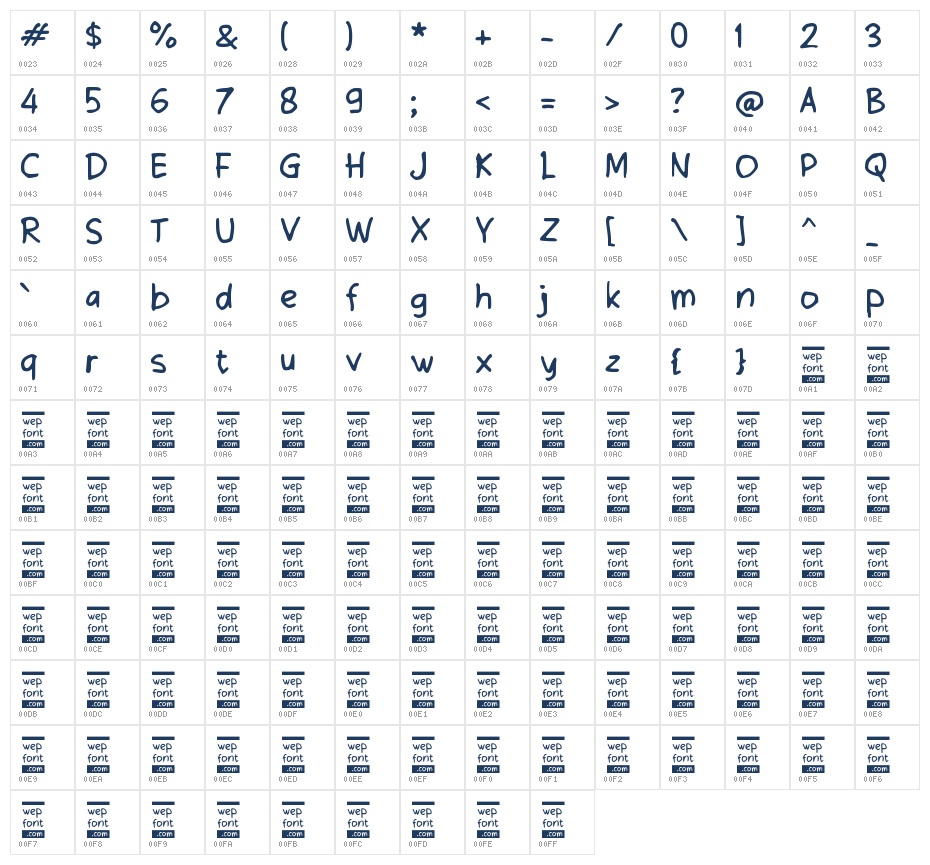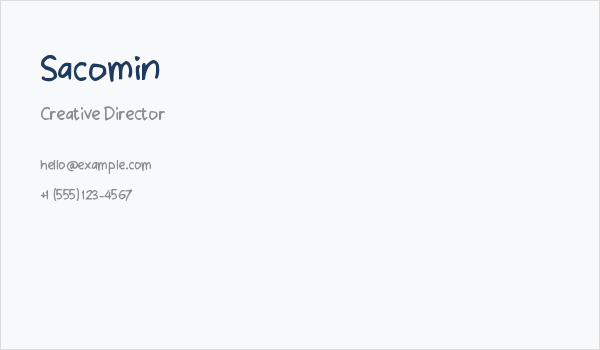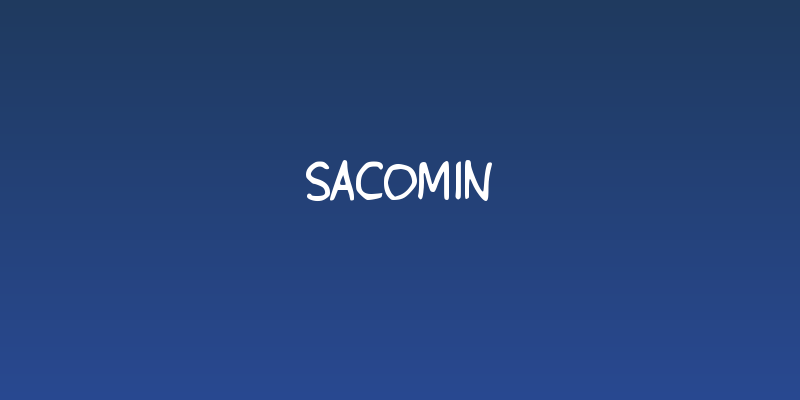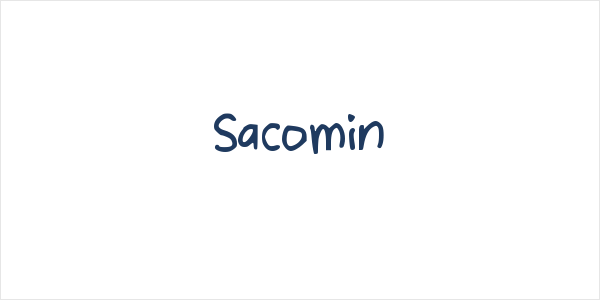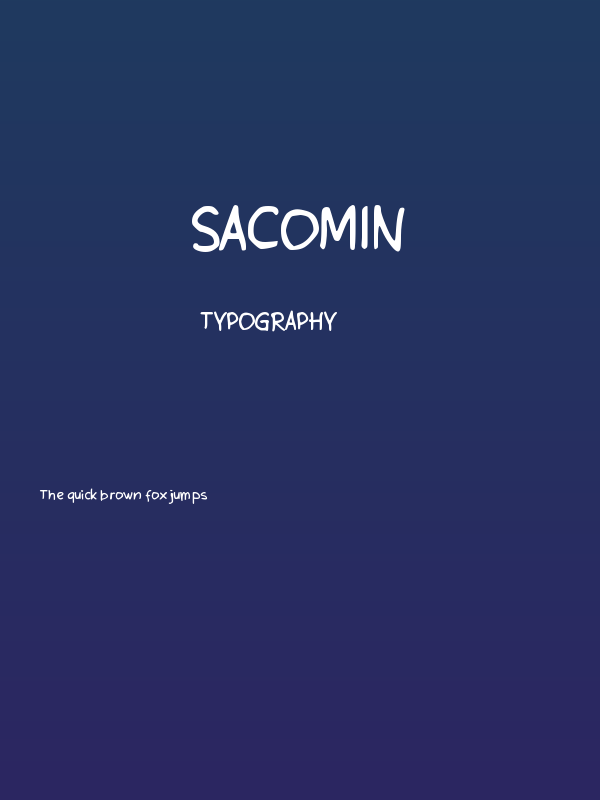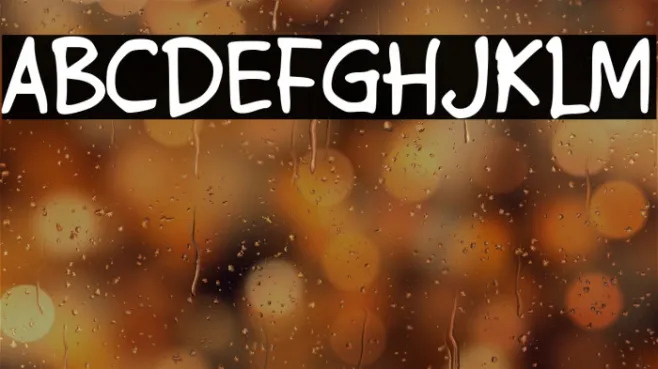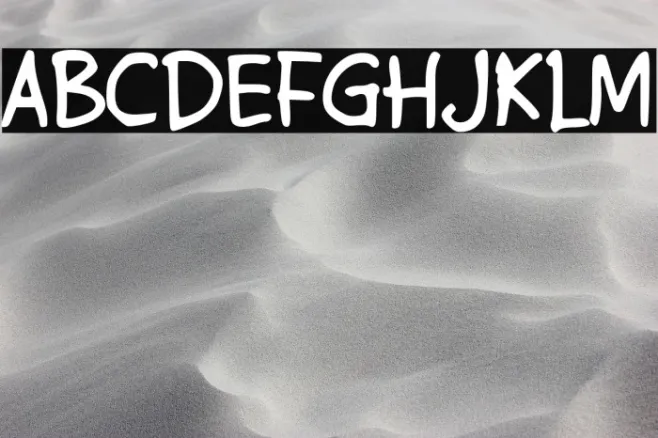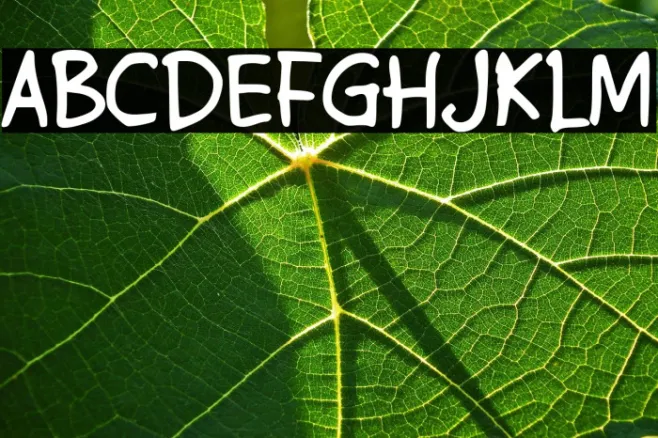
Sacomin Font
Sacomin Description
A playful, handwritten style font with a casual and friendly appearance, featuring rounded edges and a slightly irregular stroke width.
| Overall Style | Casual, Playful, Friendly |
| Use Case | Children's books, informal invitations, casual branding, educational materials. |